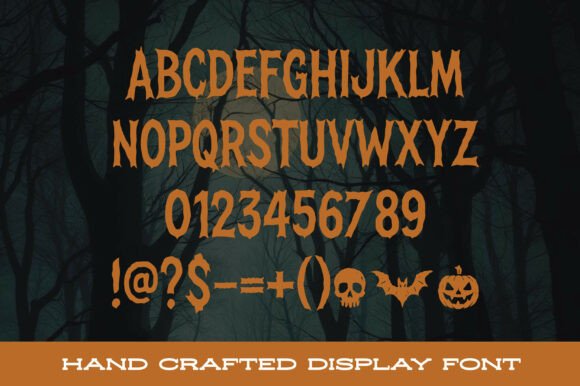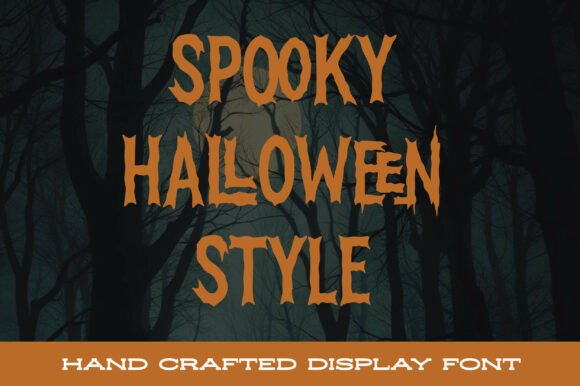
Introduction to Halloweenhaunt Font
As a designer, there’s nothing quite like the thrill of stumbling upon a unique design resource that sparks your creativity and sets your project apart from the rest. For me, that moment came when I discovered the Halloweenhaunt Font – a hauntingly beautiful display typeface that’s equal parts spooky and stylish.
With its jagged, irregular edges and eerie texture, this font is perfect for conjuring up a sense of foreboding and unease – whether you’re creating a horror movie poster, a haunted house invitation, or simply want to add a touch of darkness to your next design project. The best part? The Halloweenhaunt Font is available for free download, making it a valuable addition to any designer’s toolkit.
As a design resource, the Halloweenhaunt Font offers a level of expressiveness and versatility that’s hard to find in more generic fonts. Its high-quality, handcrafted design ensures that every character has a unique, organic feel – and with its transparent background and PUA-encoded glyphs, you can easily access all the characters and swashes you need to bring your creative project to life.
Key Features of Halloweenhaunt Font
- Unique Gothic-inspired design with intricate details and spooky ambiance, perfect for creative projects.
- Includes a wide range of characters, including uppercase and lowercase letters, numbers, and special symbols.
- Perfect for creating a spooky atmosphere in Halloween-themed designs, invitations, and other creative projects.
Honest Review: Halloweenhaunt Font
I recently had the chance to work with the Halloweenhaunt Font and I must say it’s been a fun design resource to play around with. The free download made it easily accessible and I was excited to incorporate it into my creative project.
What works well about this font is its spooky yet elegant design, making it perfect for Halloween-themed projects. The transparent background allows for seamless integration with other design elements, giving me a lot of creative freedom. The high quality of the font ensures that it looks great in various sizes and formats.
- ✨ Unique design that stands out from other fonts
- ✨ Easy to use and customize
- ✨ Great for Halloween-themed projects or any spooky design
However, there are a few limitations to keep in mind. The font is only available in a single style, which may limit its versatility. Additionally, it’s not suitable for use in large blocks of text, as it can become overwhelming.
Overall, I’m quite impressed with the Halloweenhaunt Font and would definitely recommend it to anyone looking for a high-quality, unique font for their creative project. Just be aware of its limitations and use it wisely.
The Halloweenhaunt Font is a unique design resource perfect for creative projects, adding a spooky touch to your designs. It’s available for free download and features a transparent background, making it easy to customize.
To get the most out of the Halloweenhaunt Font, experiment with different font sizes, colors, and combinations. You can also use it in conjunction with other design elements to create a cohesive look.
The Halloweenhaunt Font is perfect for:
- Halloween-themed designs
- Spooky invitations and cards
- Creepy social media graphics